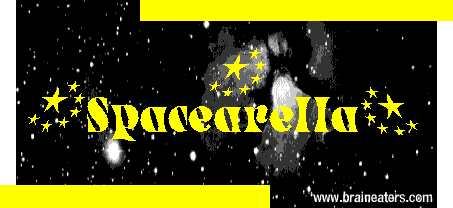
Spacearella
Glam italic serif with curling, twisted swash flourishes
Spacearella pairs a bold serif skeleton with dramatic, twisting swashes on many letters, for a look that feels like it belongs on a 1970s glam-rock poster or disco album cover. It has real flair and movement without losing readability.
Use it for retro disco and glam branding, vintage concert posters, funky packaging, and any design that wants a groovy, larger-than-life personality. Free to download for personal use.